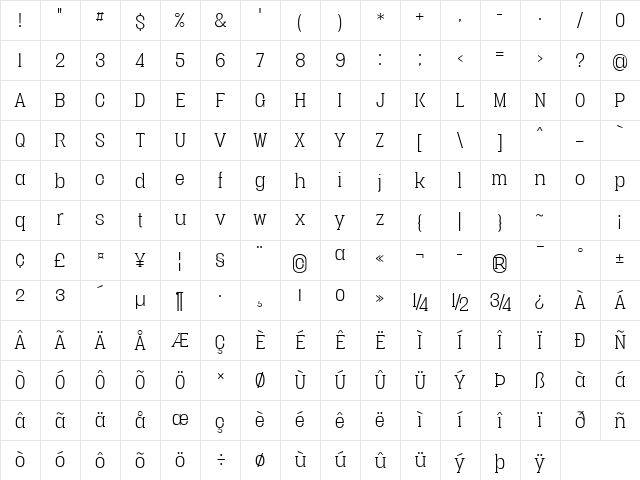
Vacer Serif Personal Light Free Font
Vacer Serif Personal Light
Foundry: Mans Greback
Designer: Mans Greback
Design Context for Vacer Serif Personal
Vacer Serif Personal carries the refined structure of traditional serif typography, with bracketed terminals and considered proportions that communicate credibility and craft. Its slender proportions lend an understated elegance to any composition.